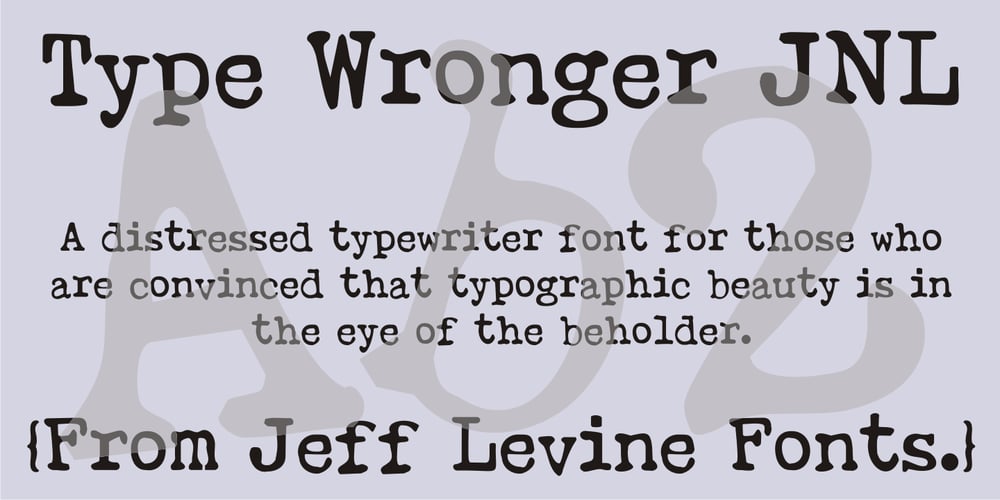
Type Wronger JNL Font Family was designed by Jeff Levine and published by Jeff Levine. Type Wronger JNL contains 1 styles and family package options. A typewriter gives you clean, crisp text from its keys, but Type Wronger JNL does anything but this. A distressed typewriter font, this font emits a rough, crude imprint as if the original had been photocopied, copied from that copy and re-copied until the original message had degenerated.